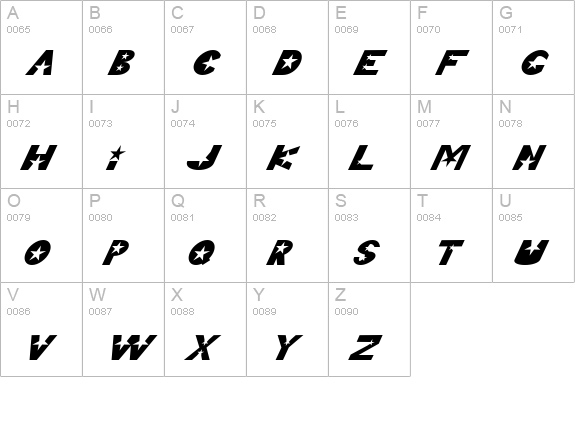
Telemarketing Superstar Italic Font Details
Telemarketing Superstar Italic is a distinctive, italic variant in the Telemarketing typeface family \xE2\x80\x94 well suited to design and typography projects.
Introducing the Telemarketing Superstar Italic font - an exquisite blend of elegance and boldness, designed to captivate and elevate any telemarketing project to extraordinary heights. With its sleek and slanted letterforms, this font exudes confidence and professionalism, making it the perfect choice for telemarketers who want to make a lasting impression. The Telemarketing Superstar Italic font boasts a unique charisma that effortlessly grabs attention, ensuring your message cuts through the noise and resonates with your audience. Its italicized style adds a touch of dynamism and sophistication, elevating your telemarketing materials to a whole new level. But what sets the Telemarketing Superstar Italic font apart is its incredible versatility. Whether you're creating sales scripts, marketing presentations, or customer proposals, this font adapts seamlessly to any project, effortlessly conveying your message with clarity and finesse. And the best part? Telemarketing Superstar Italic font is available for free download at FontsMarket.com. Yes, you read that right - absolutely free! We believe that every telemarketer deserves access to top-quality tools, and that's why we made this font freely available to help you shine in your telemarketing endeavors. So, why settle for ordinary when you can unleash your telemarketing prowess with the Telemarketing Superstar Italic font? Download it now at FontsMarket.com and watch as your telemarketing efforts transform into a symphony of success. Get ready to leave a lasting impression with this remarkable font that truly embodies the essence of telemarketing excellence.